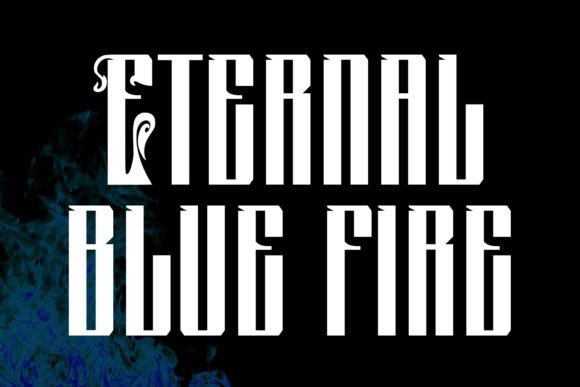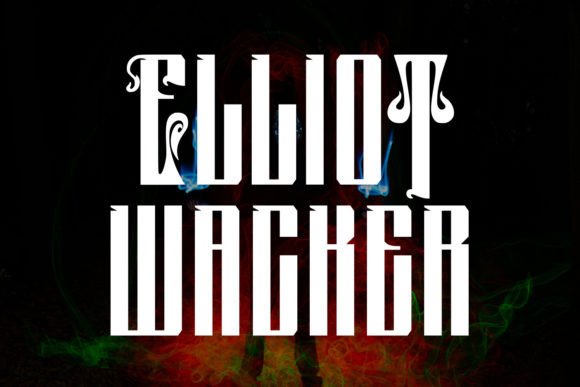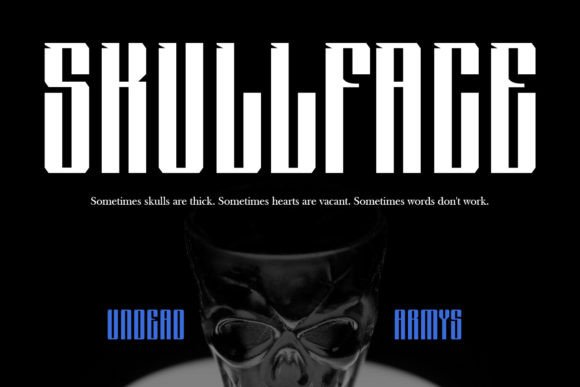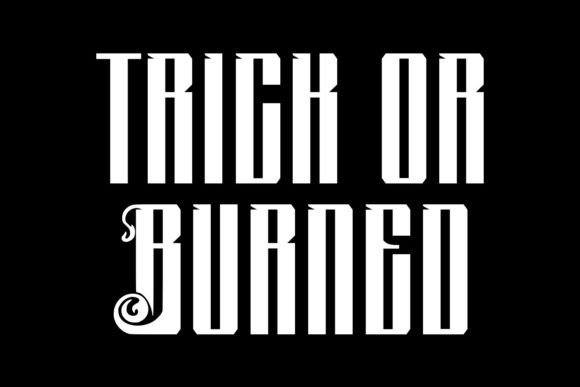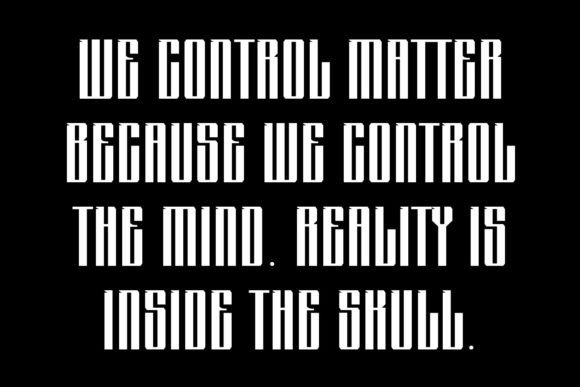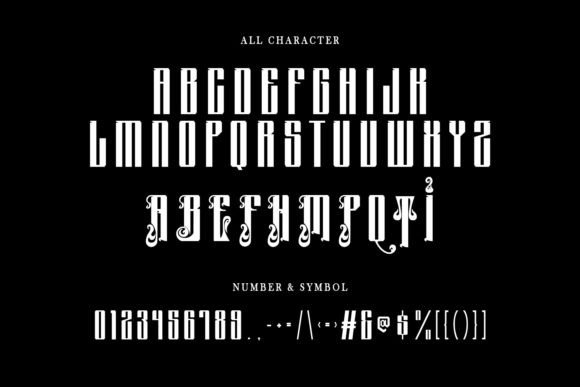
Introduction to Flamiest Font
Flamiest is a spooky and eye-catching horror display font.
Its sharp and jagged letters look like flames, perfect for creating a scary atmosphere in posters, invitations, and Halloween designs This font adds a creepy touch to any project, making it ideal for horror-themed artwork.
Key Features of Flamiest Font